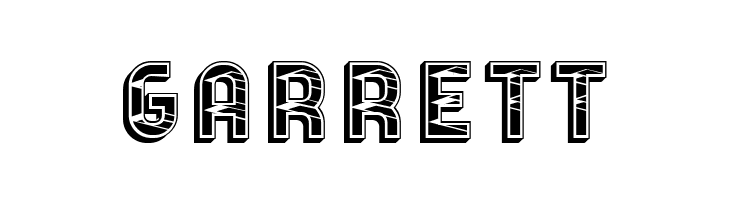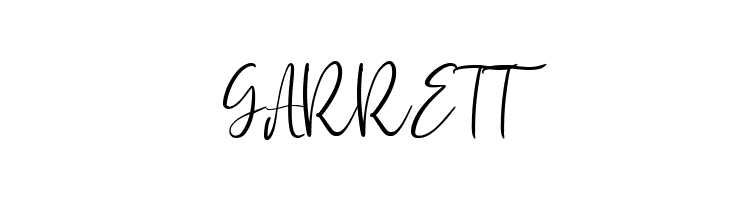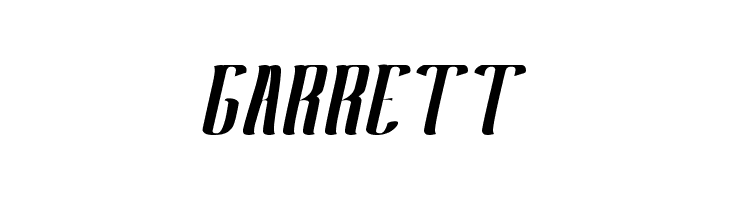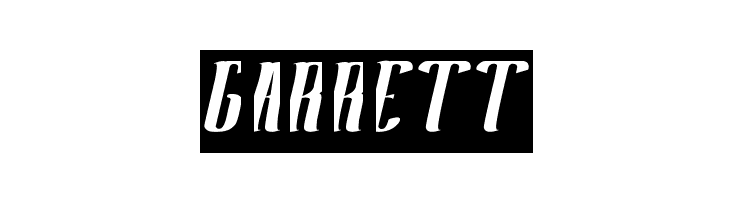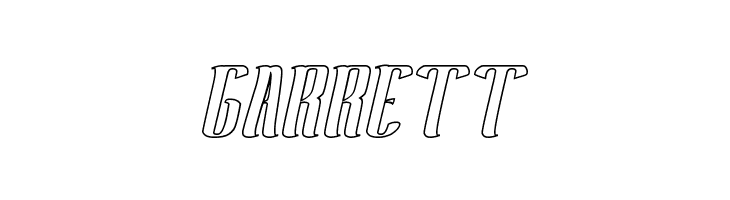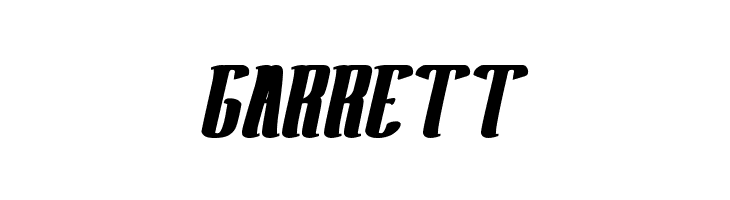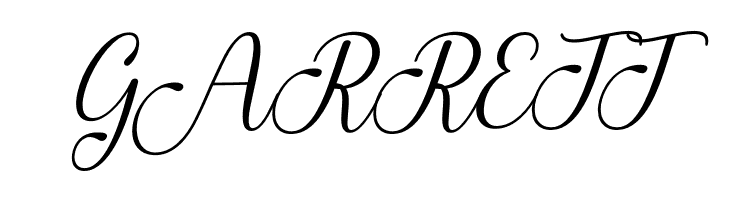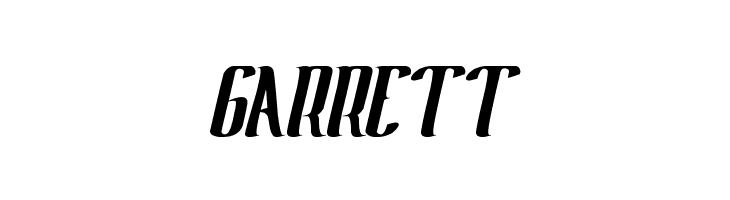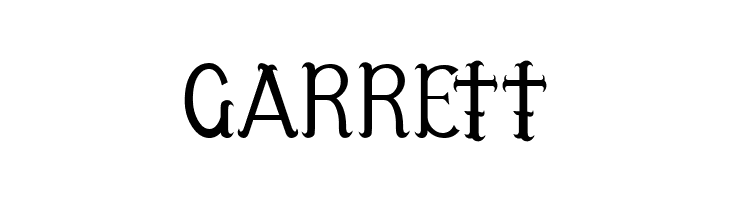
A decorative font with a blend of modern and vintage styles, featuring bold and whimsical characters.
A bold, dynamic script font with high contrast and slanted characters.
A bold, slanted font with dynamic and energetic letterforms.
A bold, italicized font with dynamic strokes and a modern-retro vibe.
A dynamic, italicized hollow font with a modern and edgy style.
A dynamic, italic serif font with sharp angles and high contrast.
A dynamic, italicized font with smooth, fluid strokes and moderate contrast.
A lively and elegant script font with flowing, cursive letterforms.
A bold, geometric font with outlined characters and internal line patterns.
A flowing, cursive script font with a personal signature style.